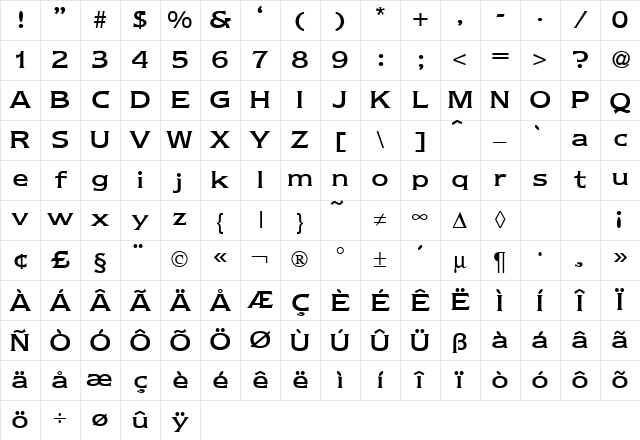
NebraskaMedium Regular
NebraskaMedium Family
Design Context for NebraskaMedium
NebraskaMedium is a composed and adaptable typeface that performs quietly and consistently across a wide range of design contexts.